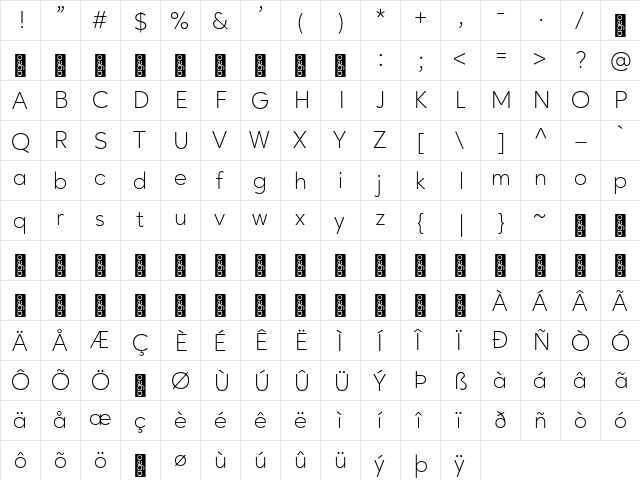
Ageo Personal Use Light Regular
Design Context for Ageo Personal Use Light Typeface
Ageo Personal Use Light offers clean, dependable letterforms without strong stylistic allegiance, making it a practical choice for designers who need flexibility. The delicate stroke weight brings airiness and refinement to layouts.
Pro Tip: Use Ageo Personal Use Light in both headline and body roles to test its range before committing to a single application.